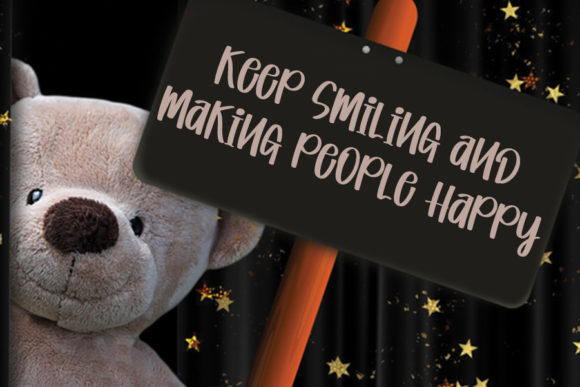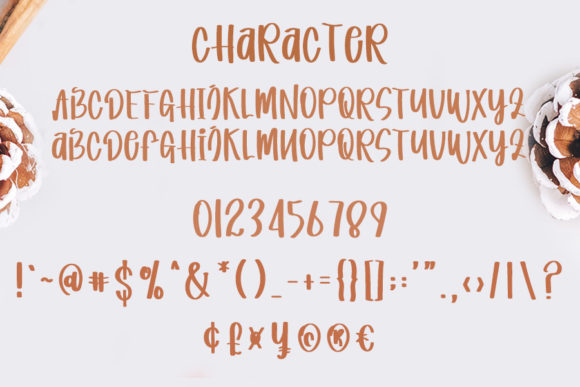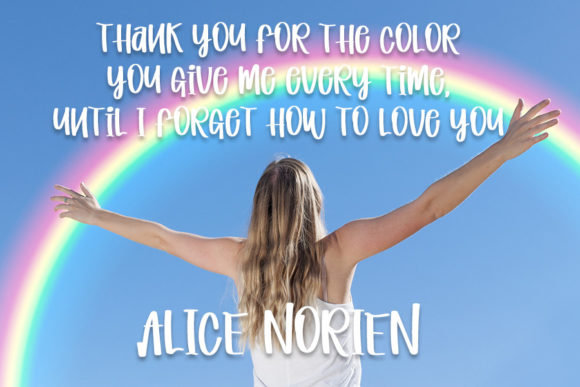
Introduction to Jelly Rainbow Font
Jelly Rainbow is a chic and trendy handwritten font.
Key Features of Jelly Rainbow Font
Why Choose Jelly Rainbow Font?
Jelly Rainbow Font offers exceptional quality and versatility, making it a valuable addition to your design toolkit. Whether you’re creating for personal projects or commercial use, Jelly Rainbow Font delivers professional results.